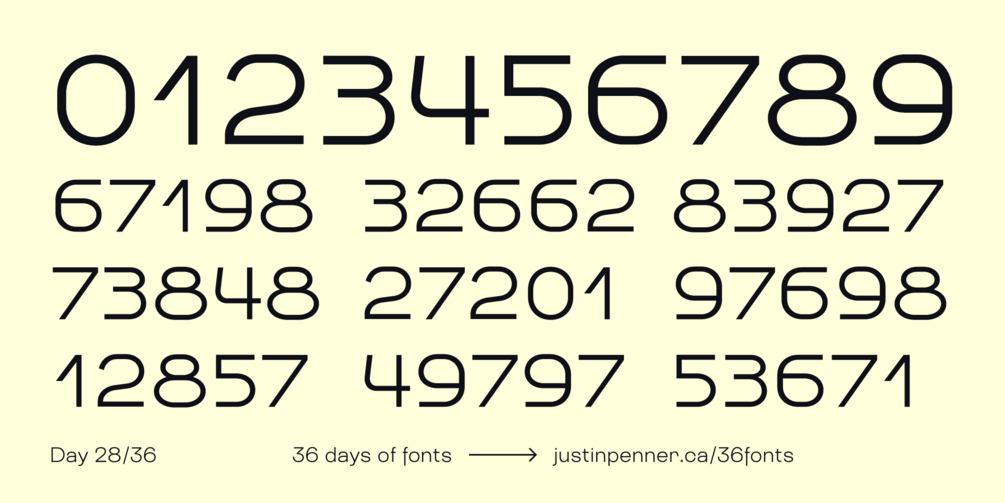
36 Days of Fonts: Day 28
Control is now Space Mode! Space Mode is a retail font with an extended character set, and many more improvements.
Control
Still not ready to kick the sci-fi, so here's a font I'd use if I had the job of designing the interface for a spacecraft.